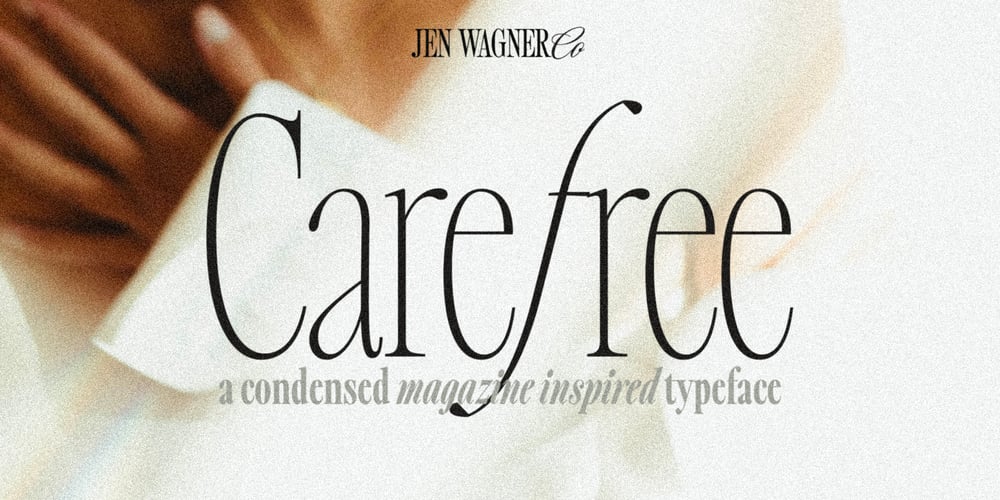
Carefree Font Family was designed by Jen Wagner and published by Jen Wagner Co.. Carefree contains 16 styles and family package options. Carefree makes it so simple to elevate a logo or headline text, whether you’re wanting something bold or delicate.Introducing the Carefree Serif family – a gorgeous condensed serif typeface that includes 16 fonts, regular and italic, from Hairline weight to Bold.This typeface looks best in larger settings as a display text (think big headers, pretty quotes, calls to action, etc.), but can also be really stunning for longer text like quotes. I would probably avoid using this as a body text because of the high contrast.I’ve also been loving combining the regular and italic and mixing up the weights, especially for beautiful logos.